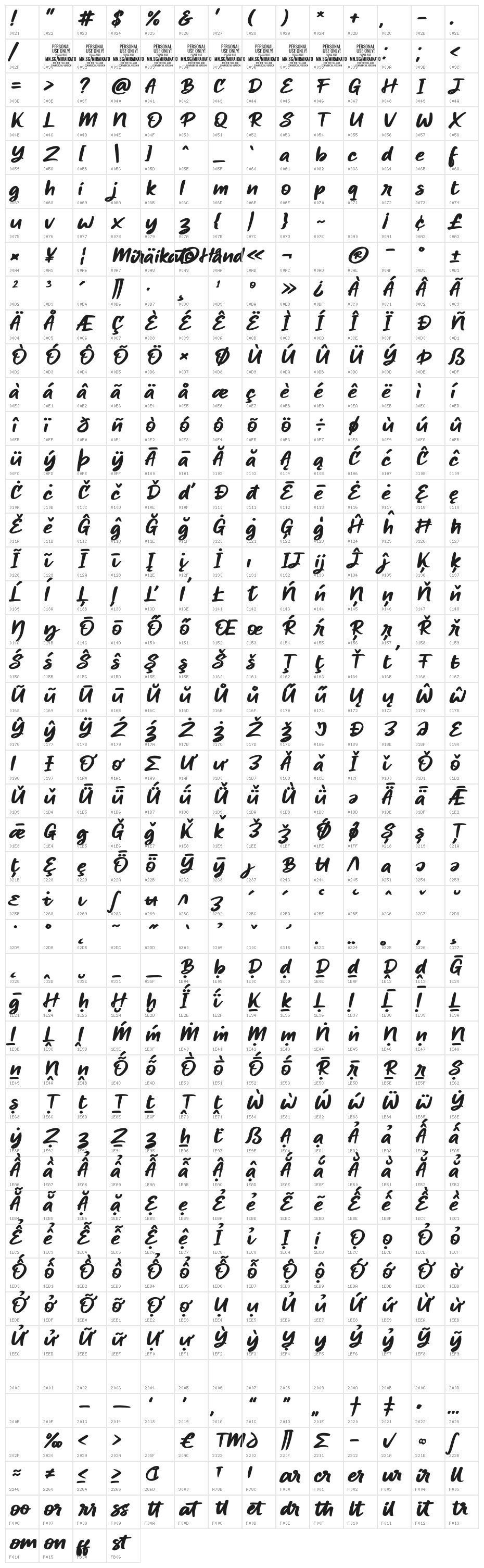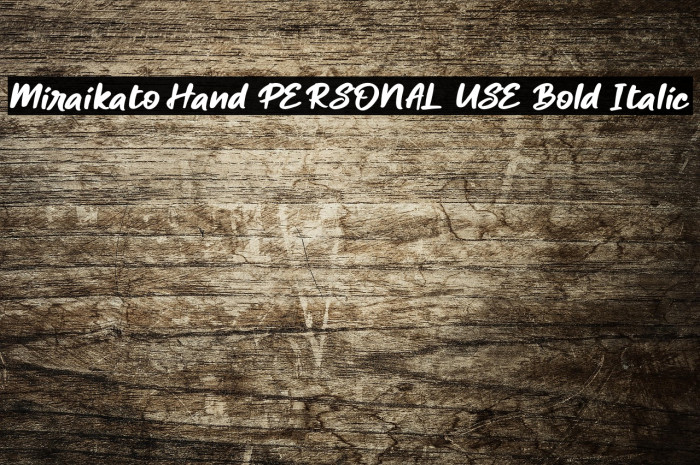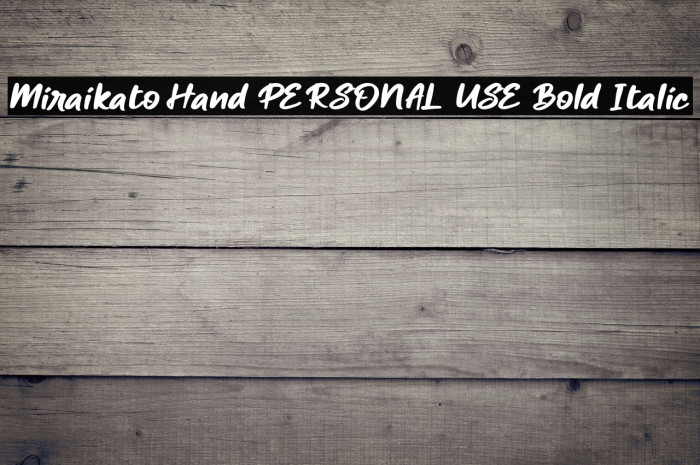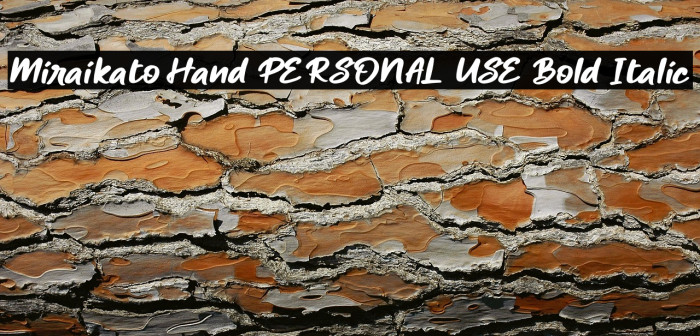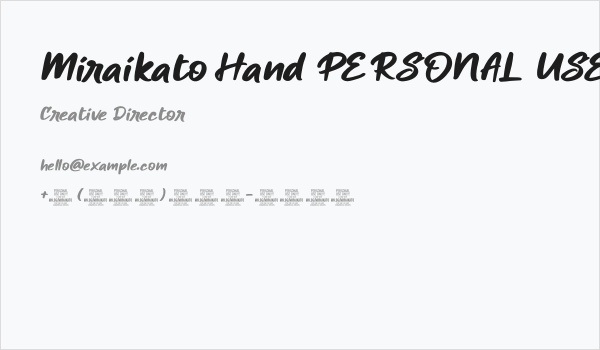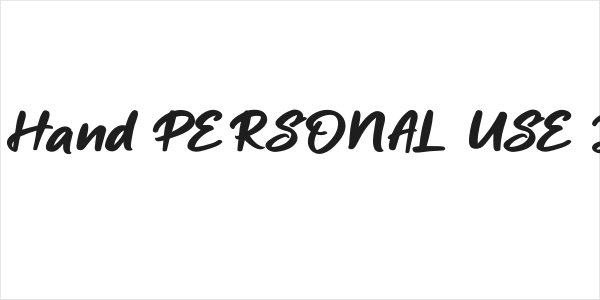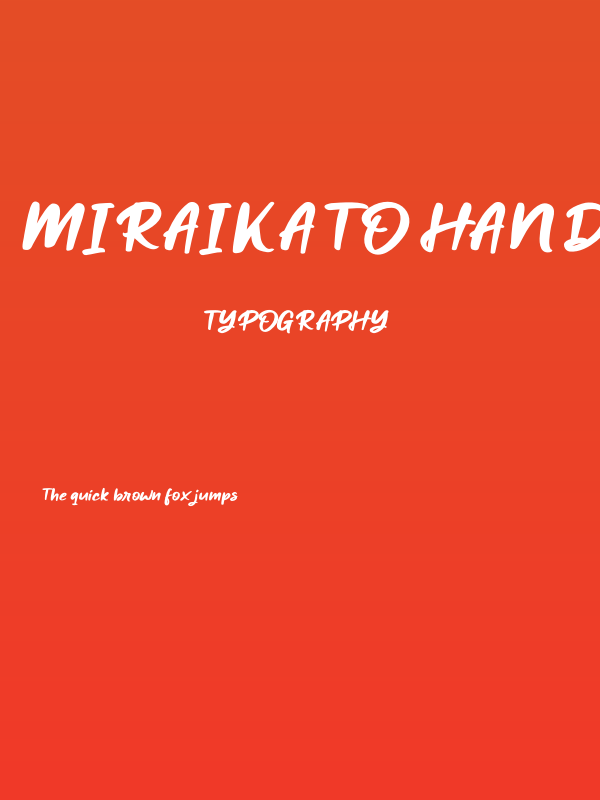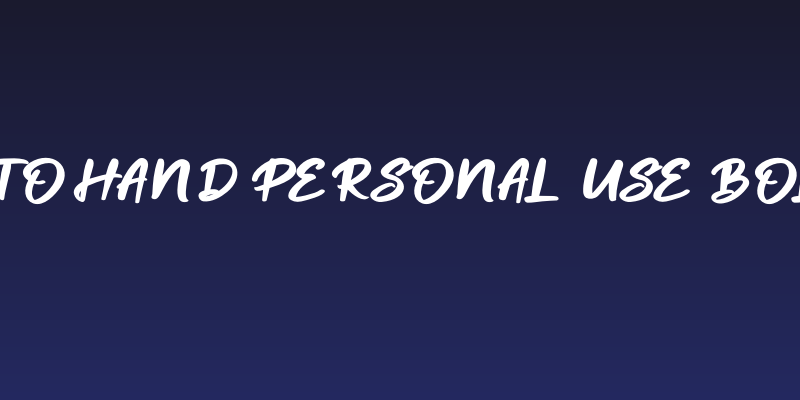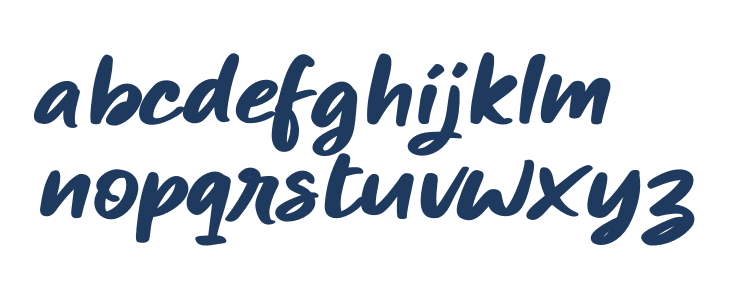
Miraikato Hand PERSONAL USE Bold Italic Font
Miraikato Hand PERSONAL USE Bold Italic Description
This font features a bold and expressive handwritten style, characterized by its fluid and dynamic strokes. The letters are slightly slanted, adding a sense of movement and energy. The uppercase and lowercase characters maintain a consistent style, with rounded edges and a smooth flow. The font includes a full set of numerals and a variety of special characters, making it versatile for different uses. Its bold weight and italic style enhance its presence, making it suitable for attention-grabbing designs.